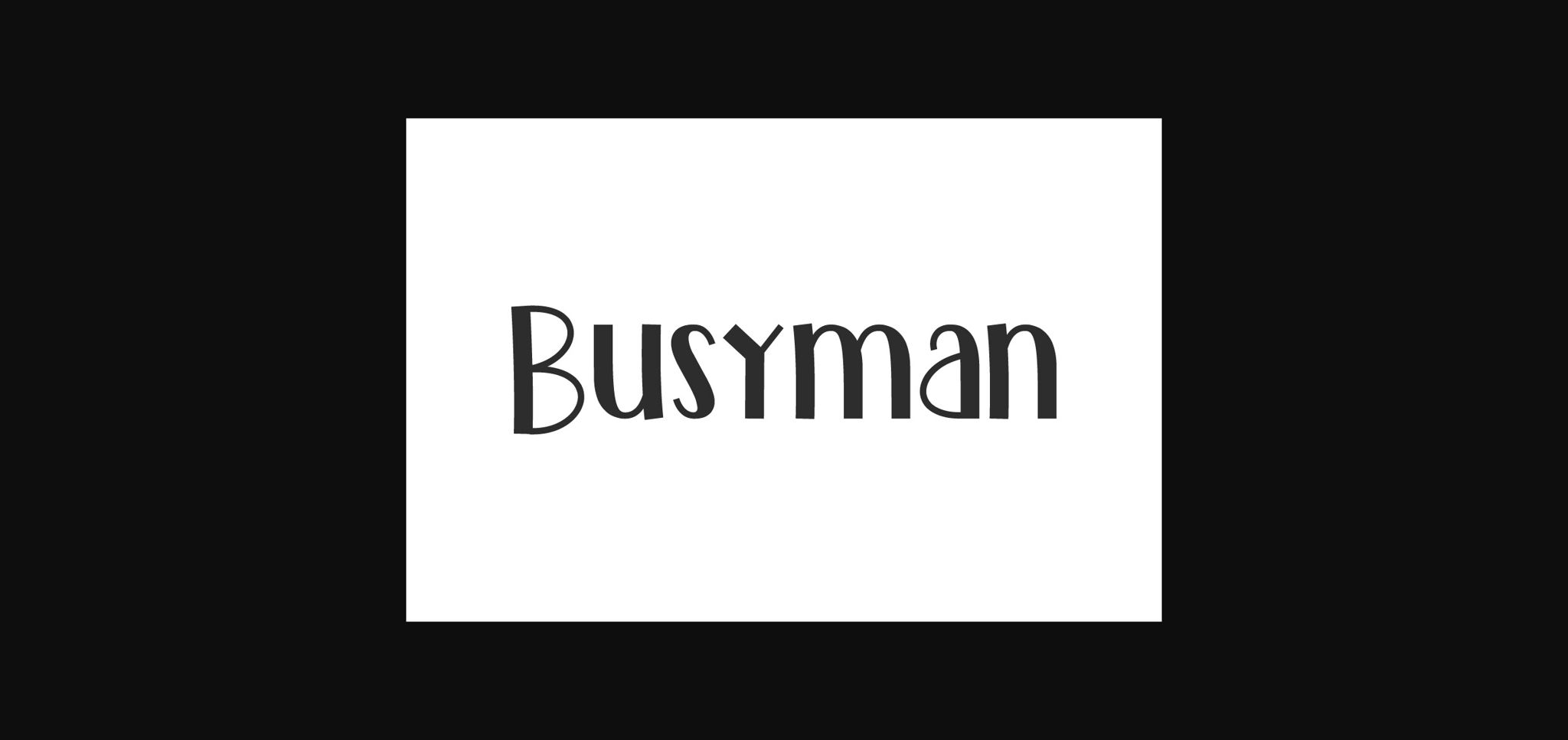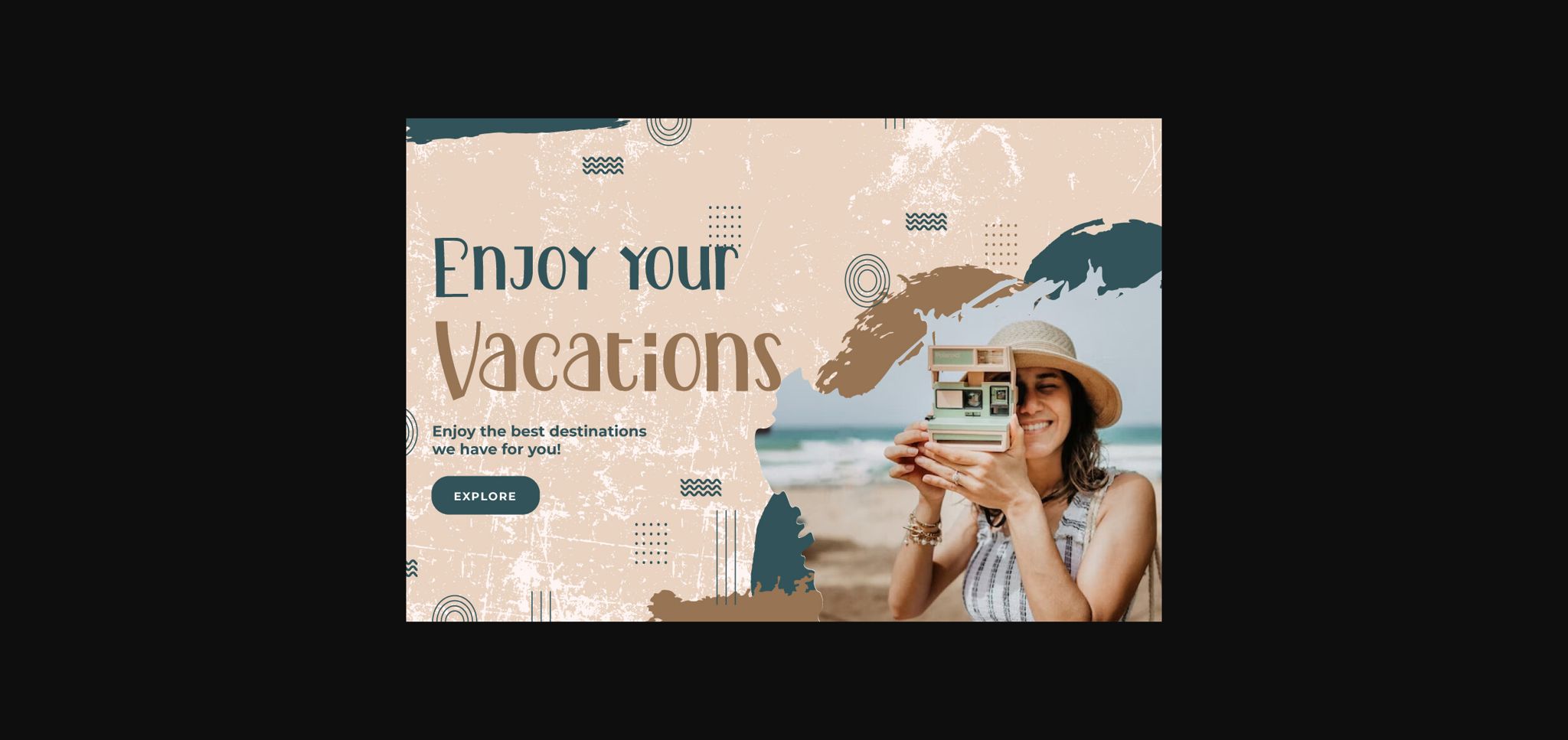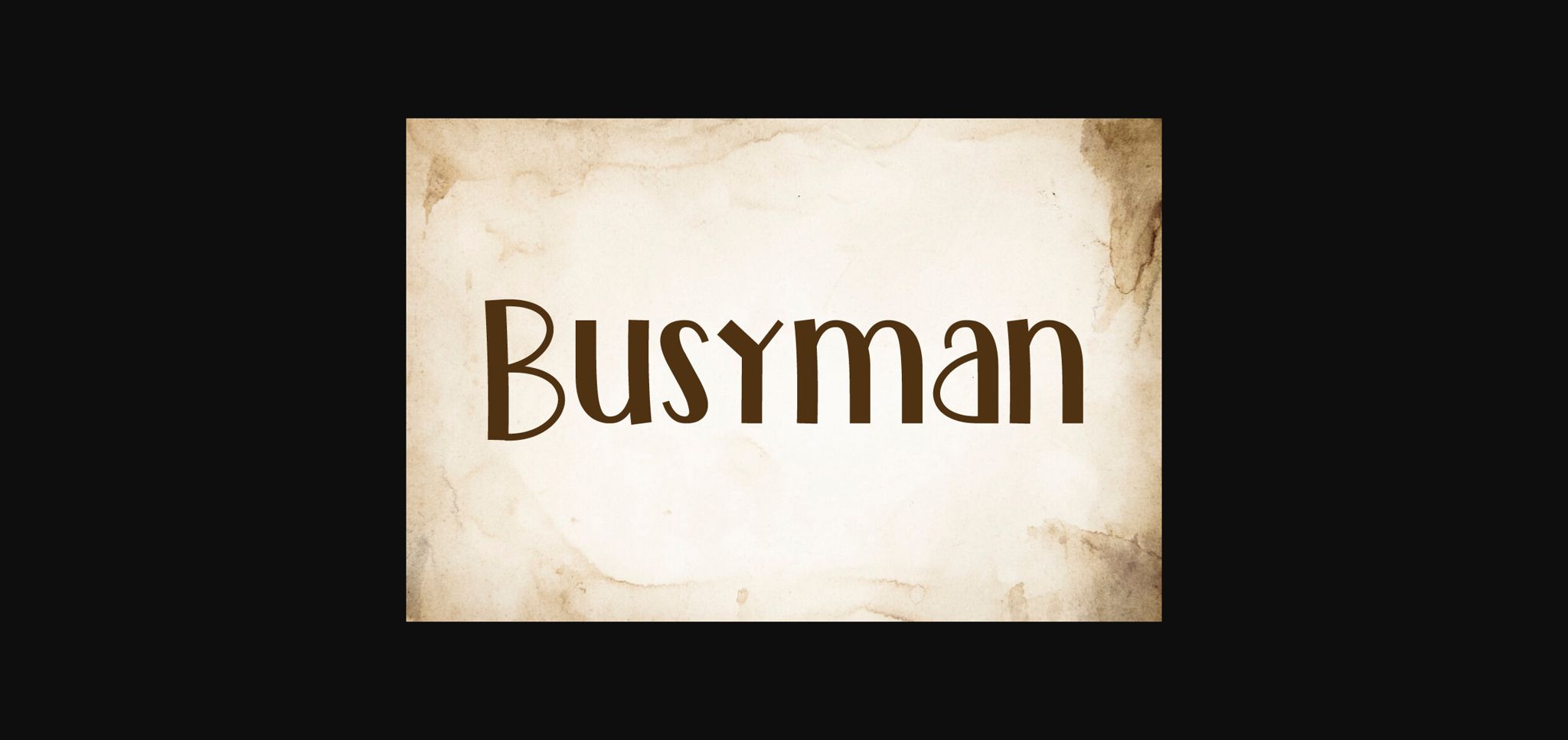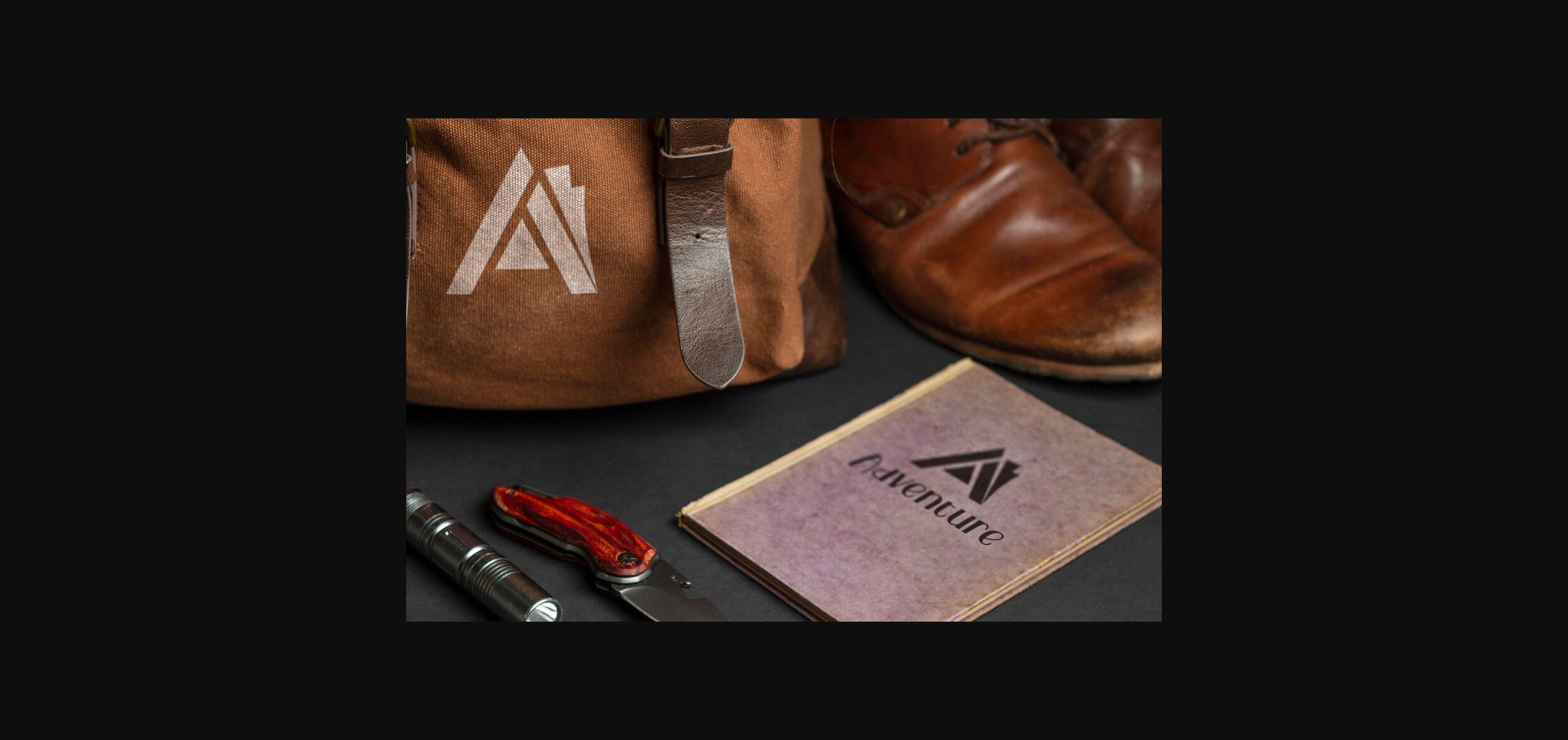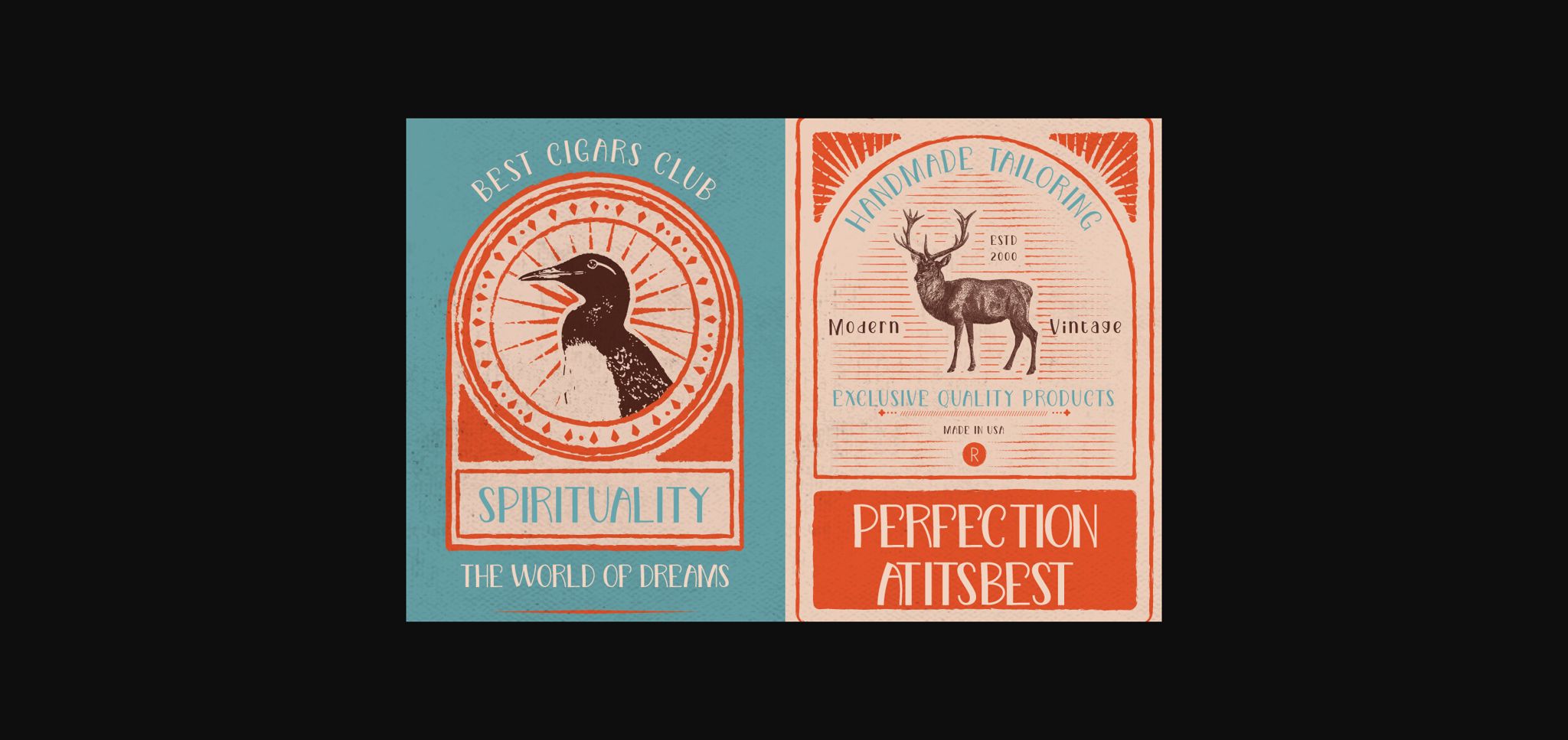
About Busyman Font
Busyman Font is a special comic style retro neat sans serif display font inspired by a classic designs. This font is a cute simple, showing one side of the bold then thinning. Not only that, this font is also considered a blend of modern & retro or in other words retro contemporary so that it presents its own uniqueness that makes it timeless. It will be perfect for your project, such as brand logo, cover, label, packaging design, poster, sticker, title, website, etc.